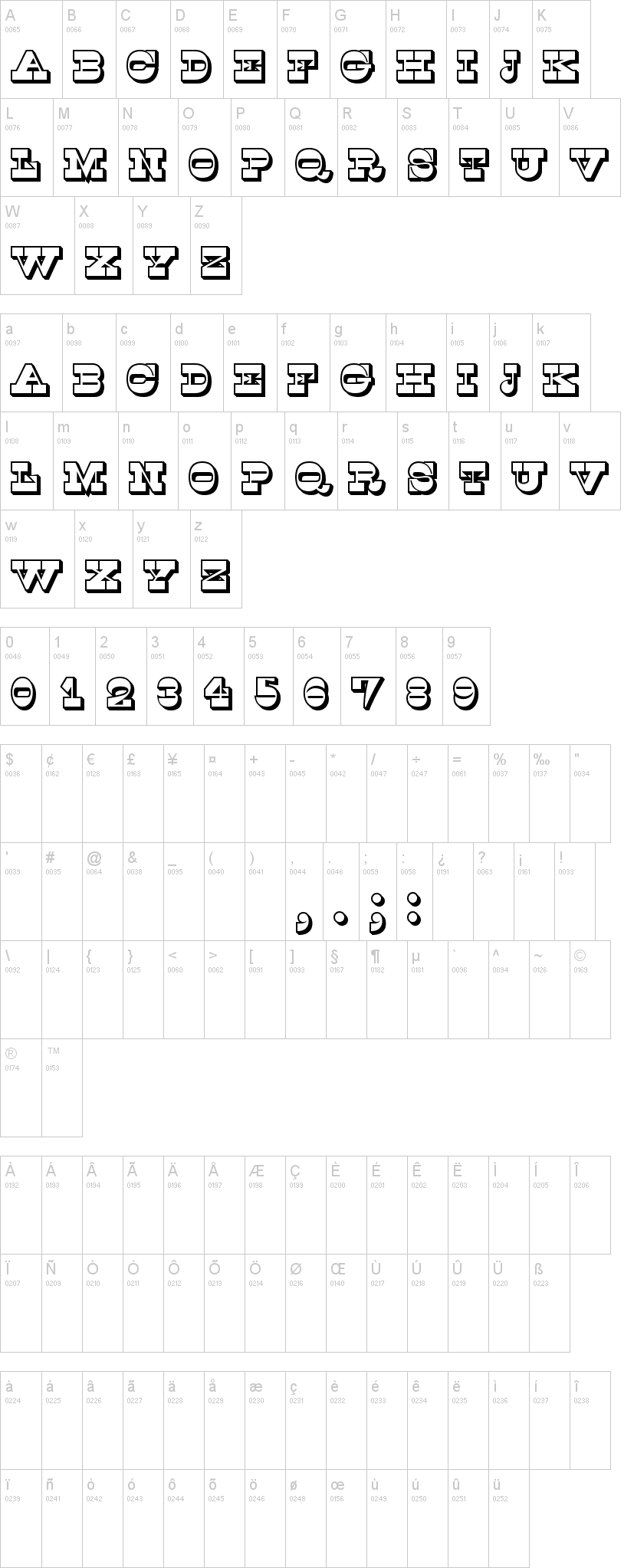
KaspiyskFilled.ttfNote of the author"Kaspiysk" is based on the famous "Italian" typeface by "Caslon & Livermore" from 1821.
"Kaspiysk" comes in Regular and Filled version.